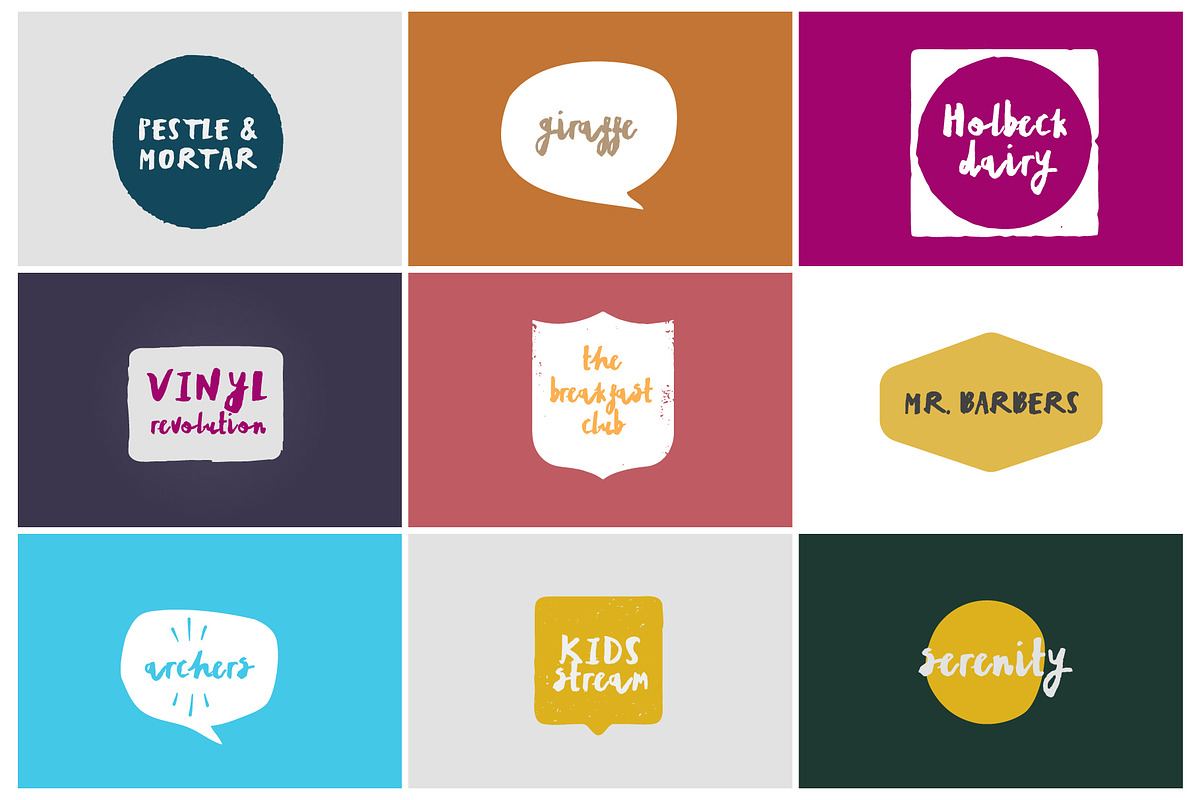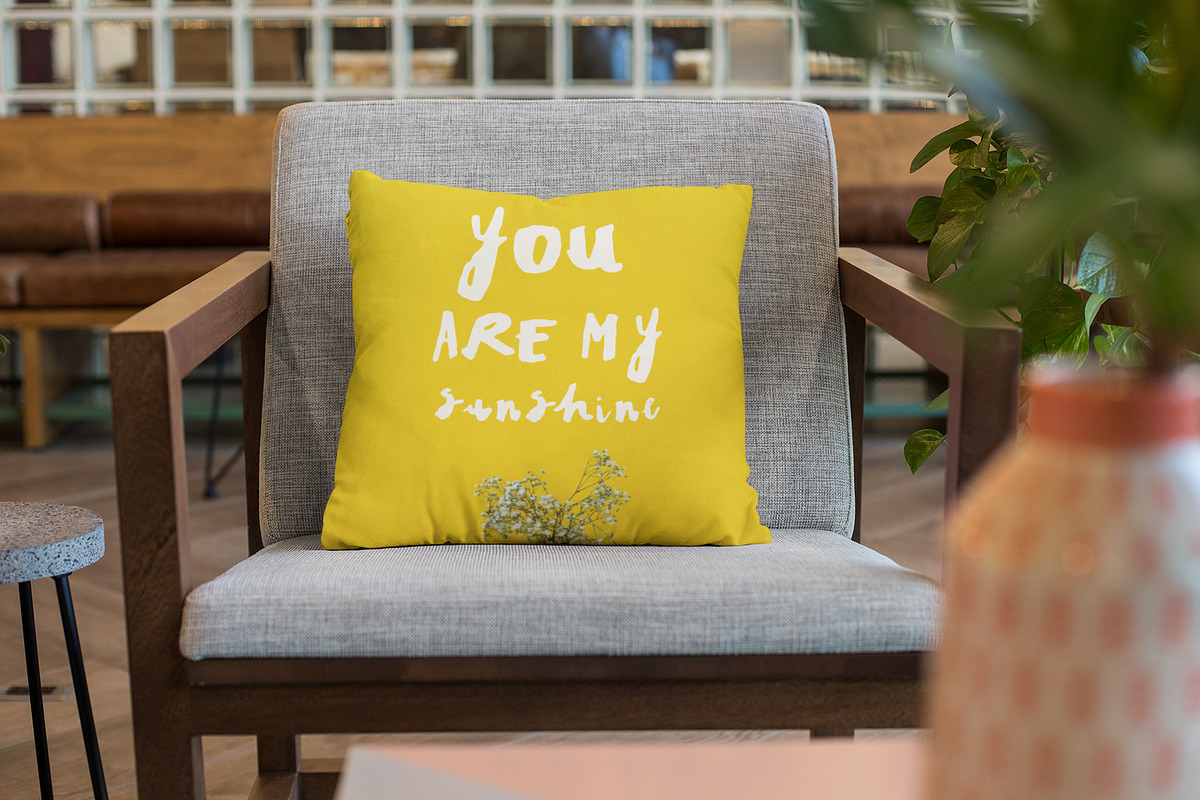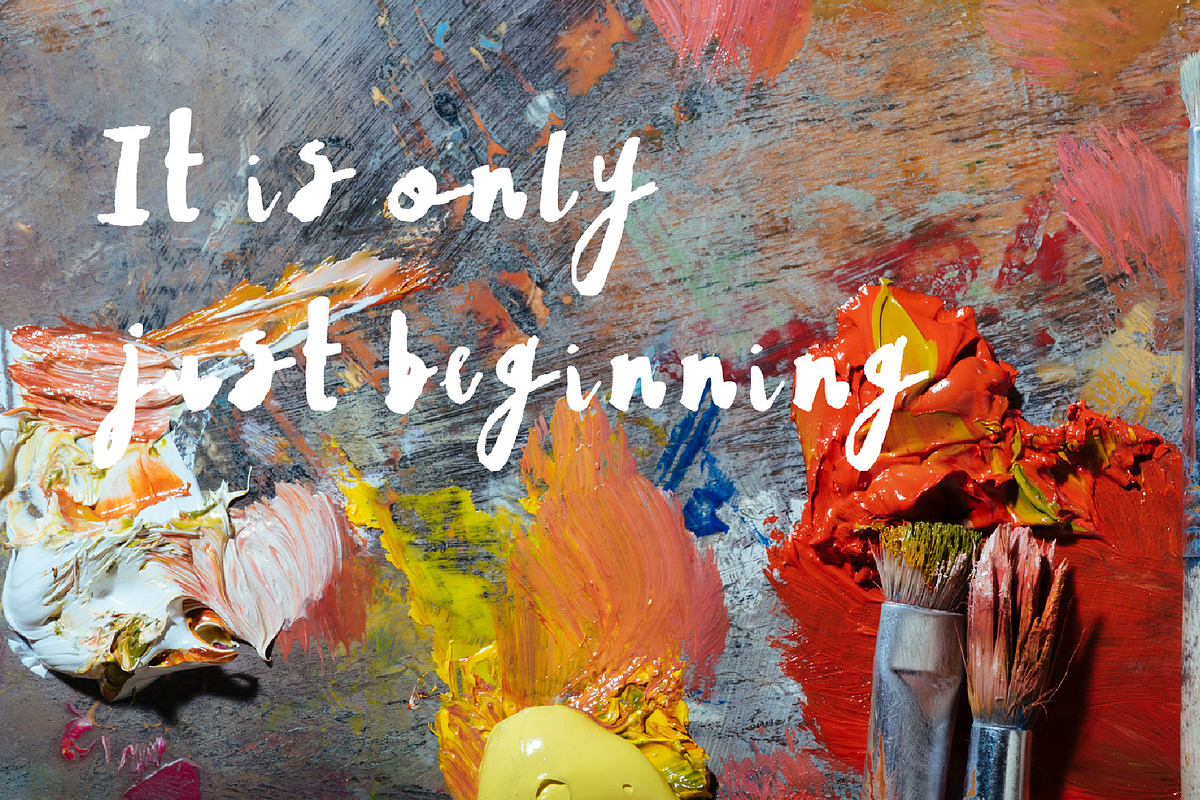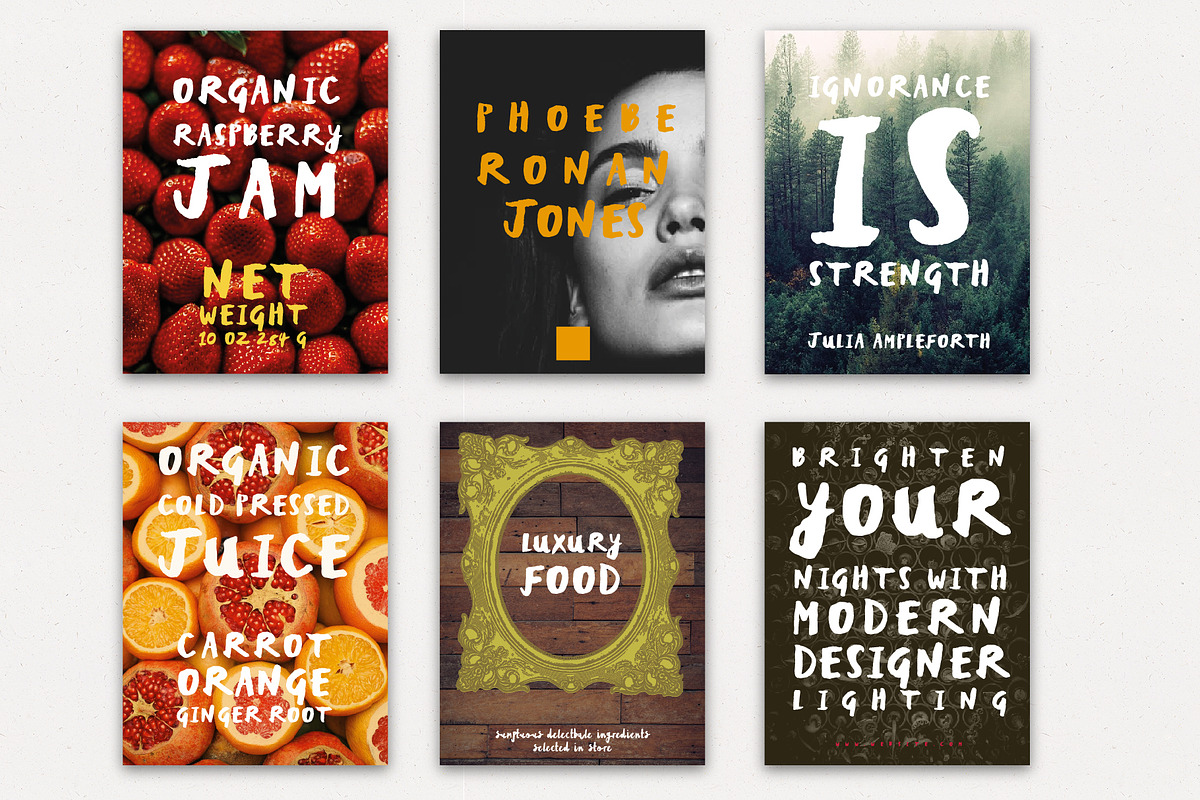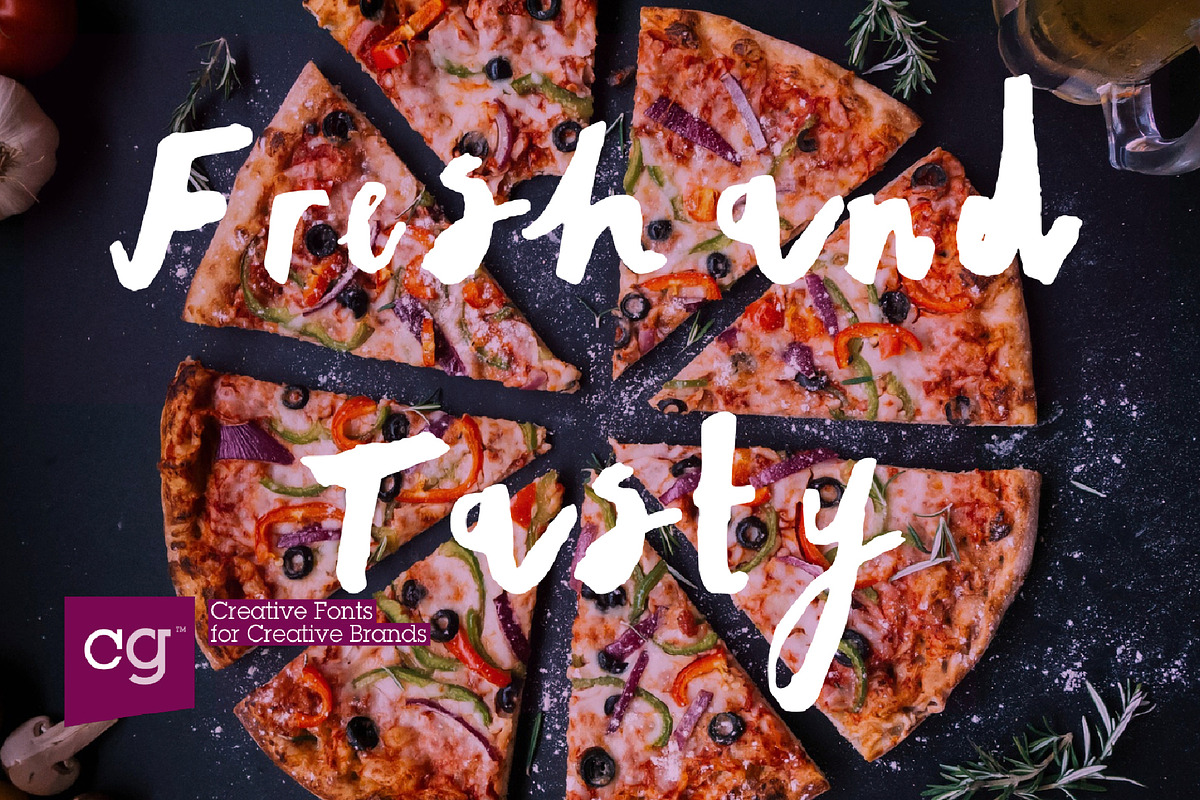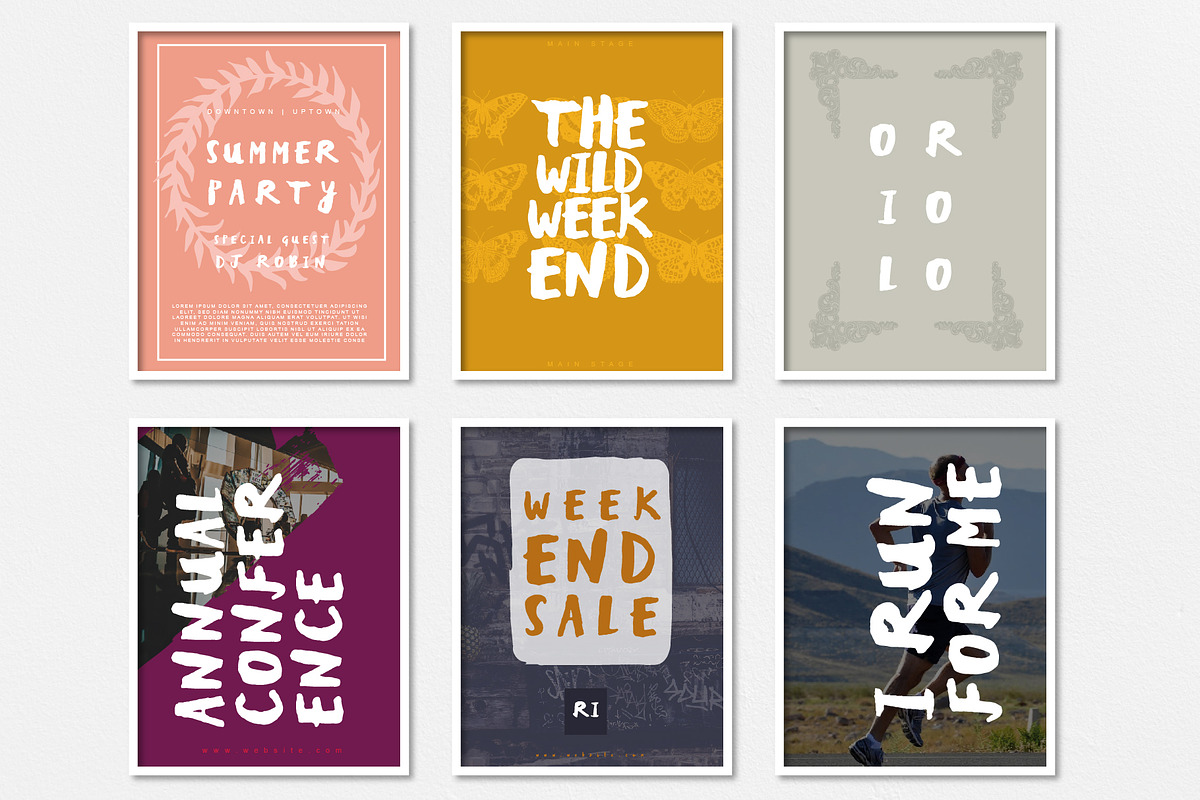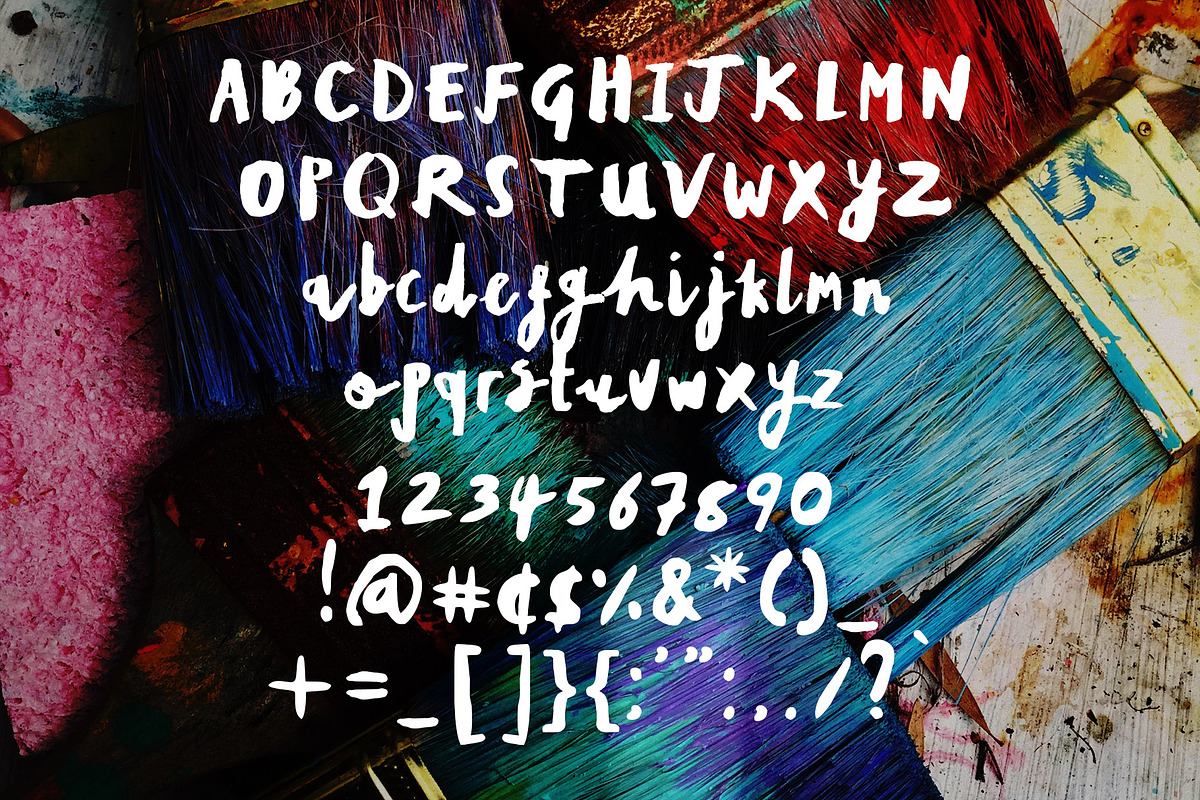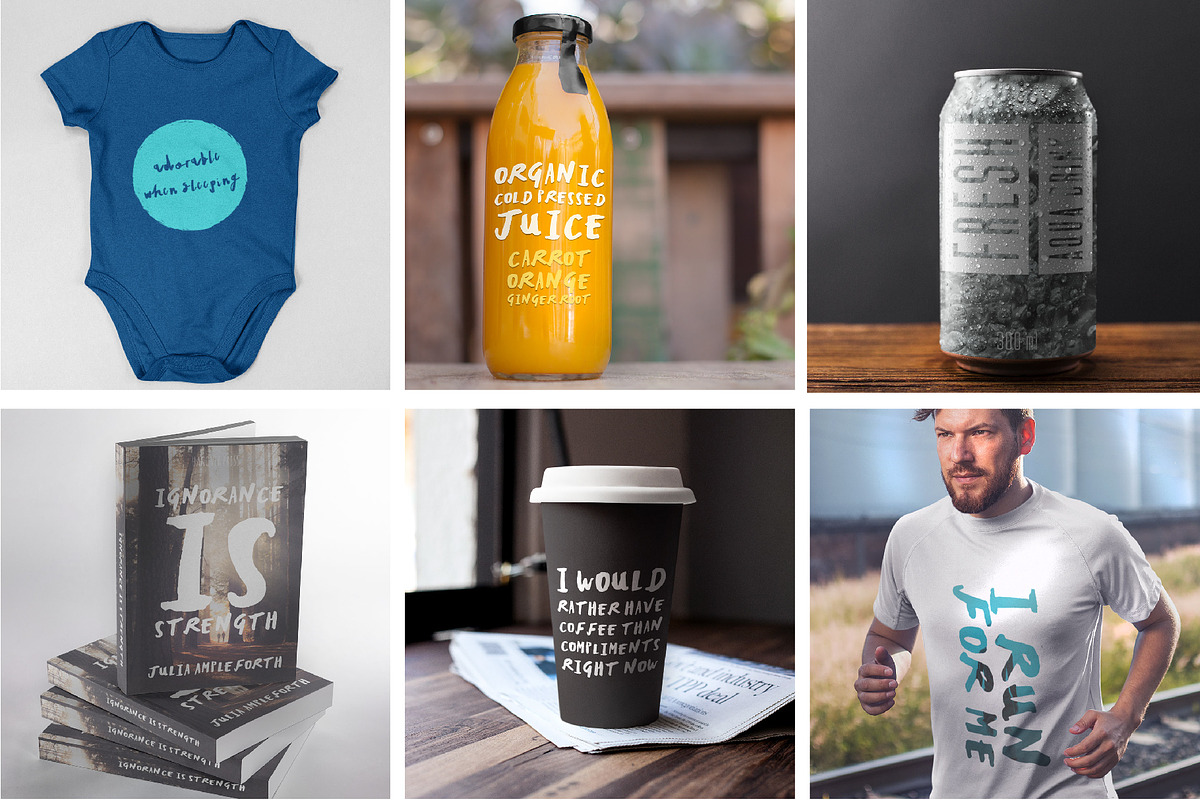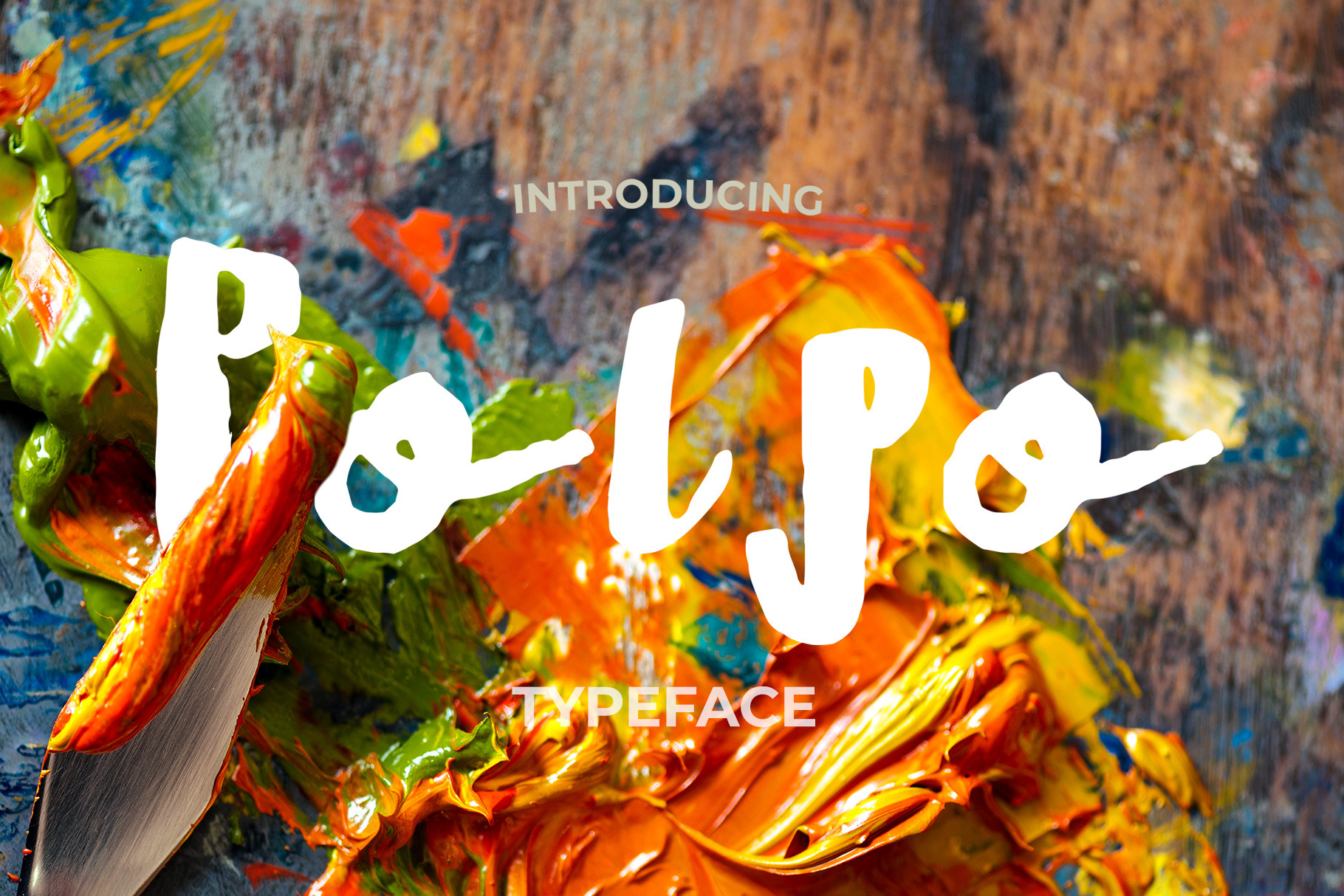
Polpo Inky Font | Bold Hand-drawn
Polpo Inky Font is a bold and expressive typeface with an organic, hand-drawn feel. Inspired by inky pen strokes, Polpo brings a dynamic and artistic touch to your designs. Perfect for posters, album covers, branding, packaging, and editorial layouts, this font adds a unique and creative flair to any project.
With its irregular edges and textured appearance, Polpo captures the essence of handcrafted typography, making your work stand out with authenticity and personality.
- Uppercase and lowercase letters
- Hand-drawn inky style
Polpo's expressive style is ideal for projects that require a bold statement and a personal touch.